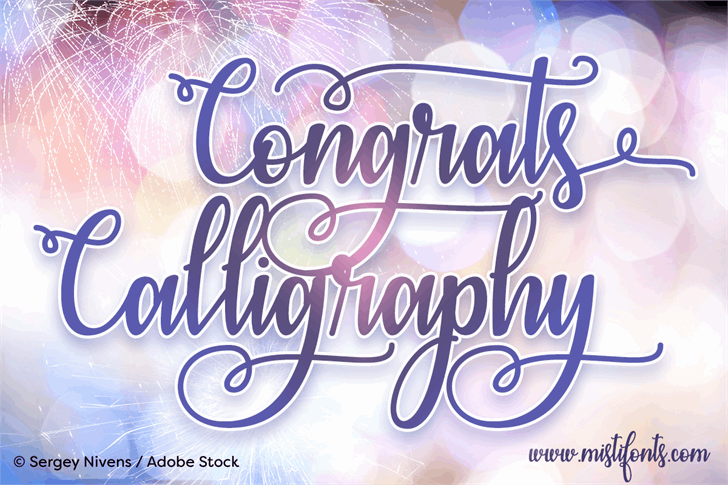
Free Congrats Calligraphy Font
Featuring the amazing free congrats calligraphy font. This typeface file was found from the amazing source called Font Space. This is absolutely fancy font so you can easily make world-class designs.